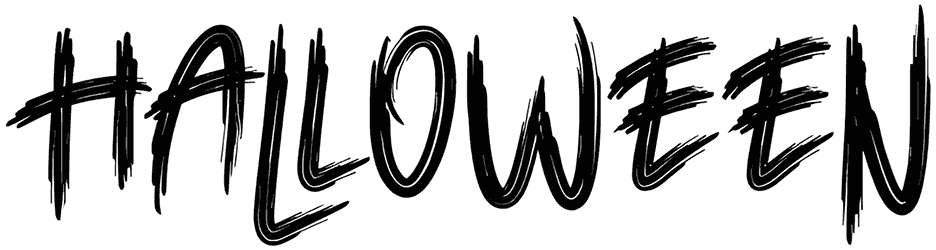
Grim Reaper is one of the horror fonts that bring out the mystery, suspense, and darkness of a scary moment in your writing. This font has an inherent feeling that creates fear in the heart of the viewer without the need for additional graphics or messages.
The handwritten nature of it, without the lowercase letters, is just as frightening as the shaky illustration that appears in blood on the wall. So, it can look very bright on invitations, computer games, and books.